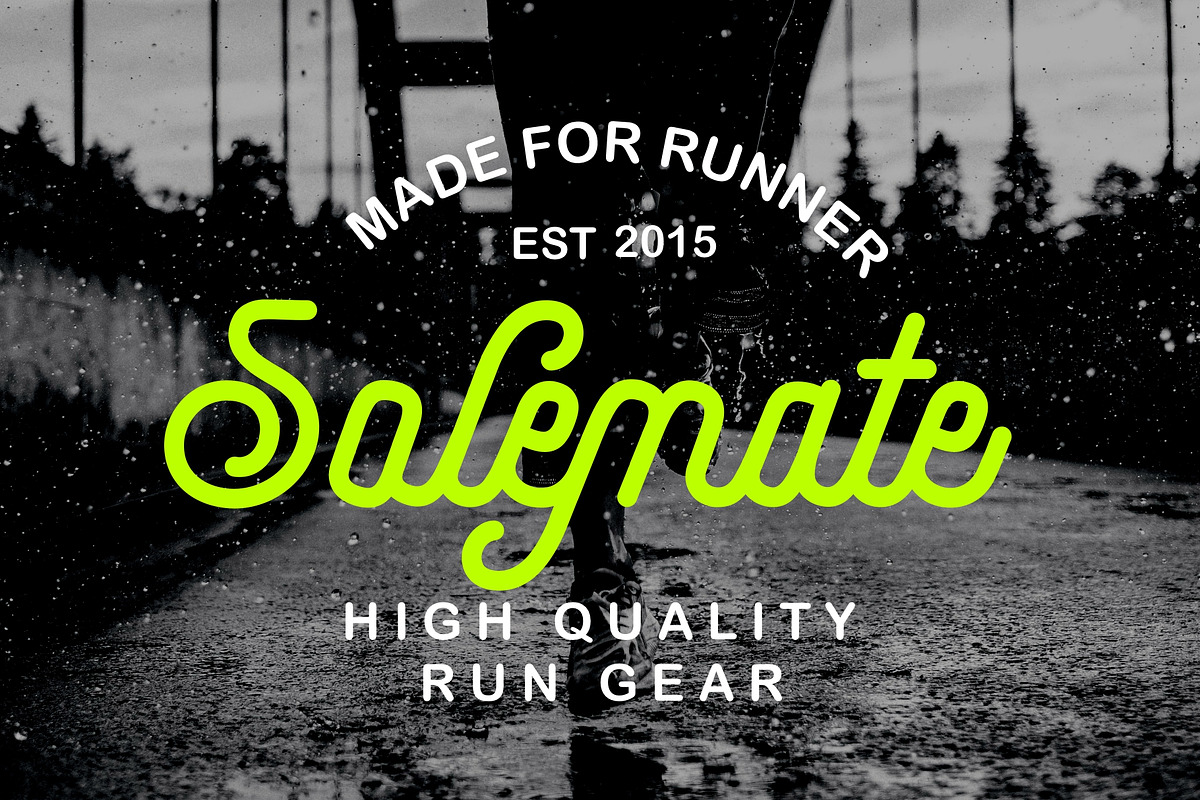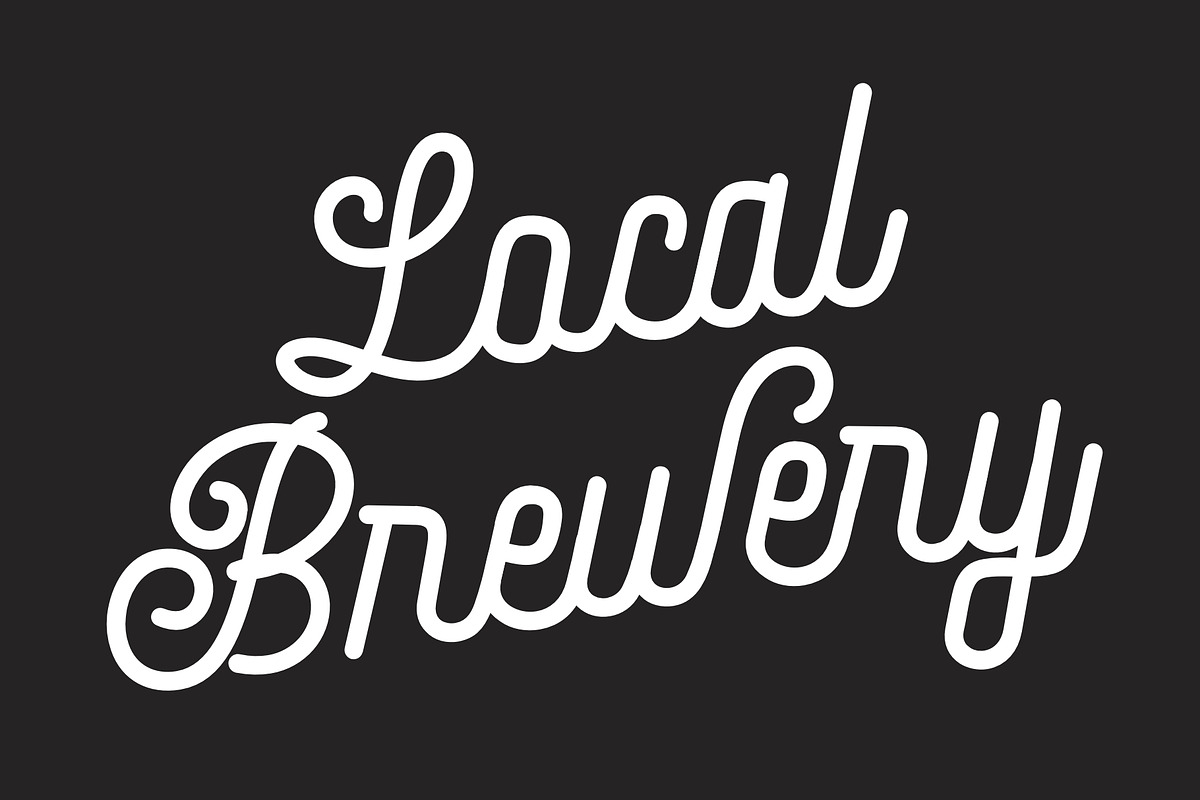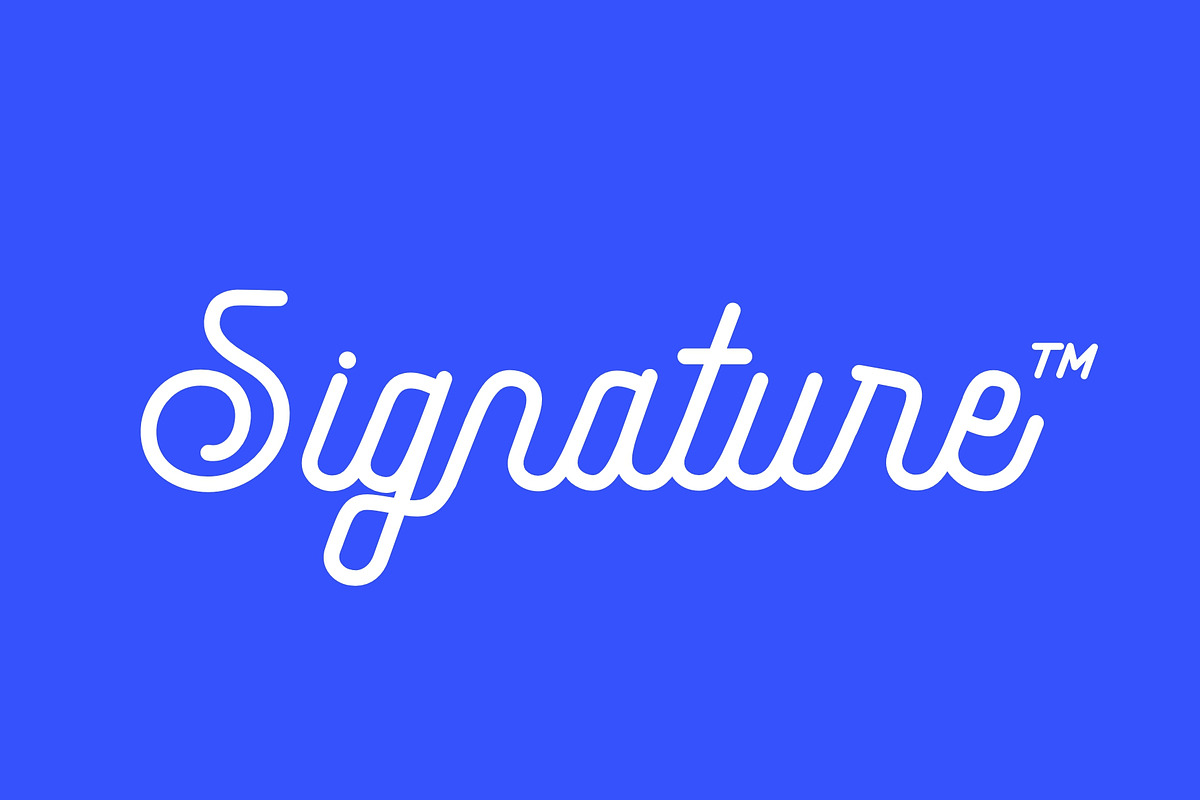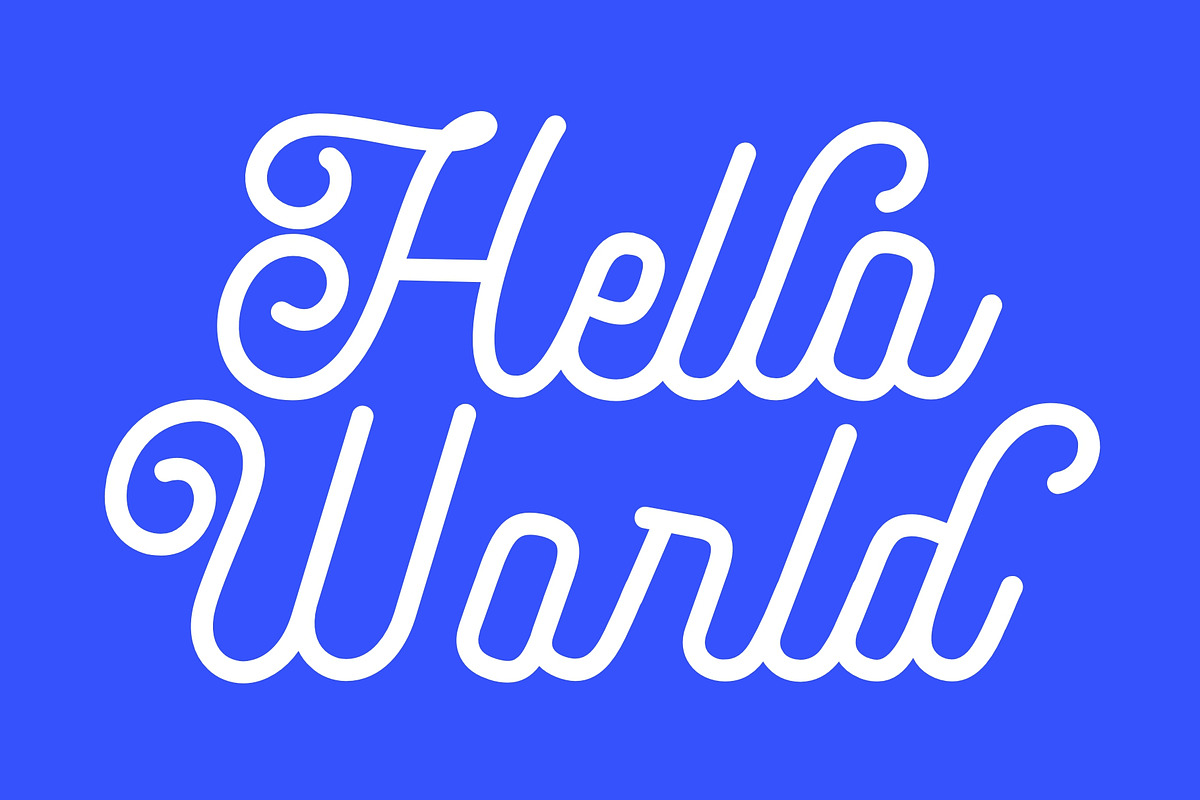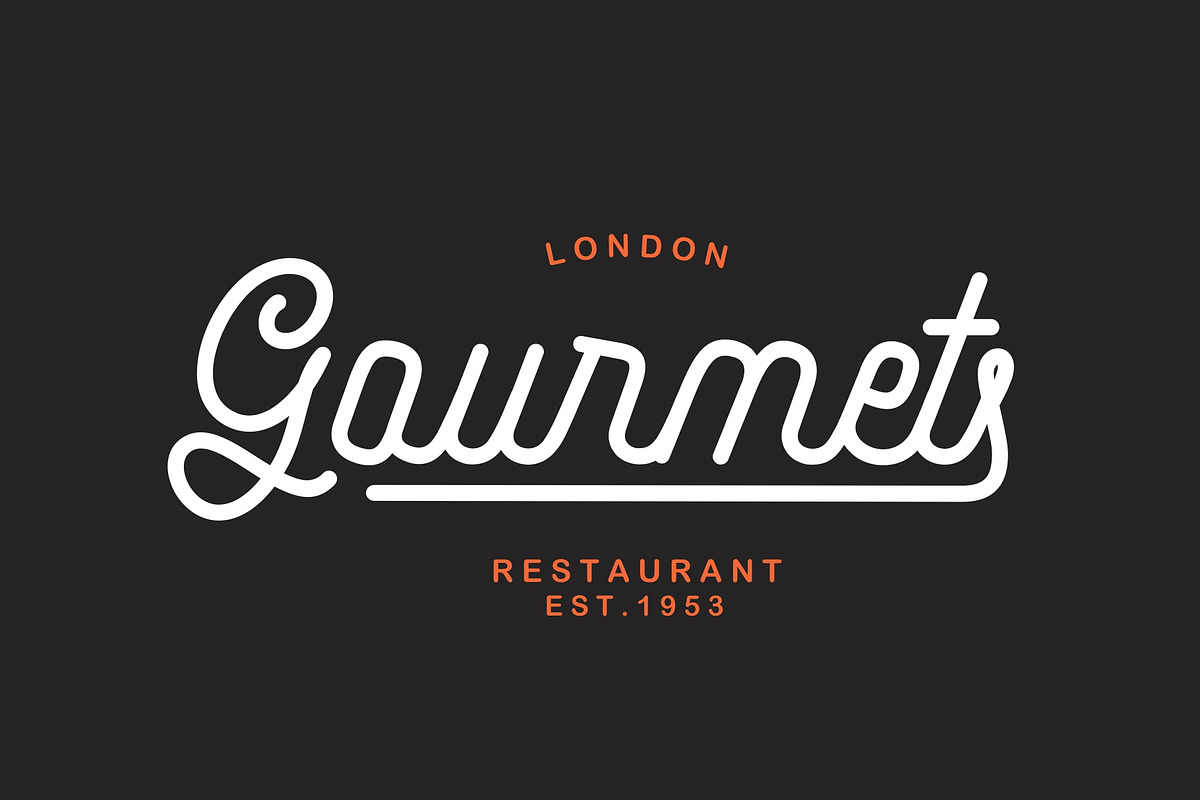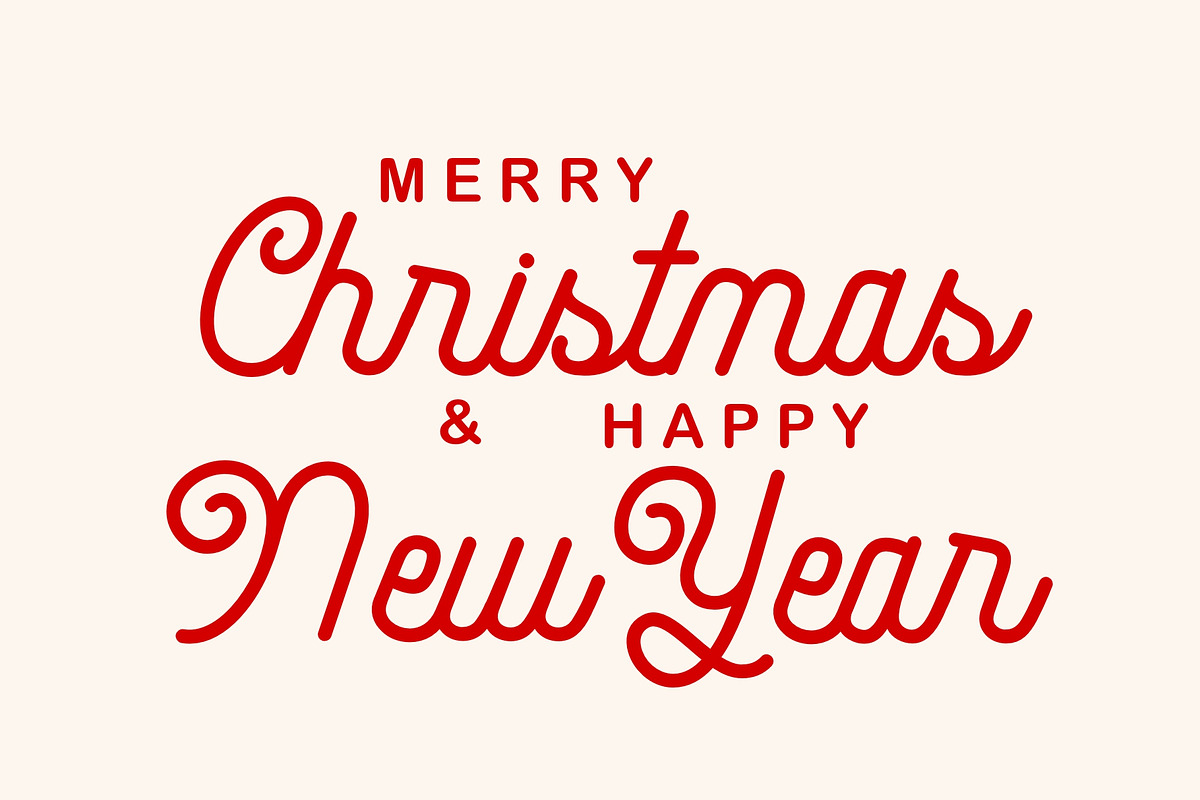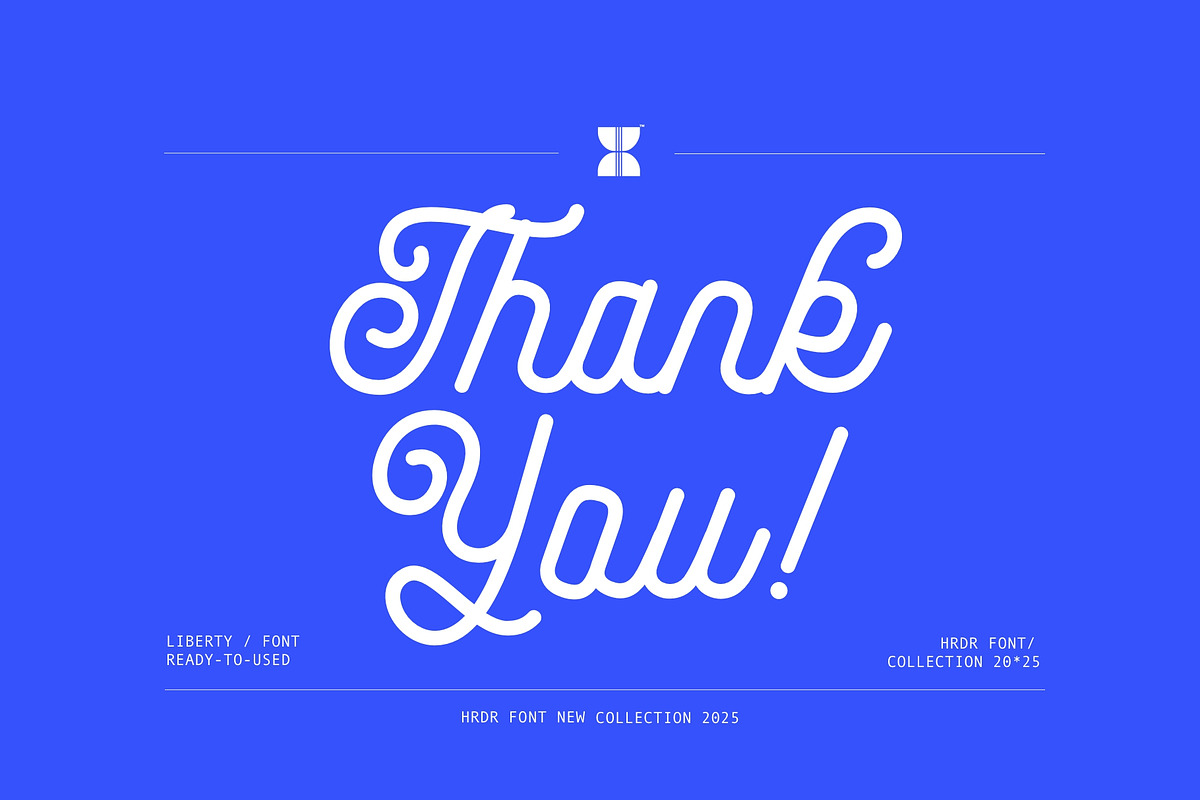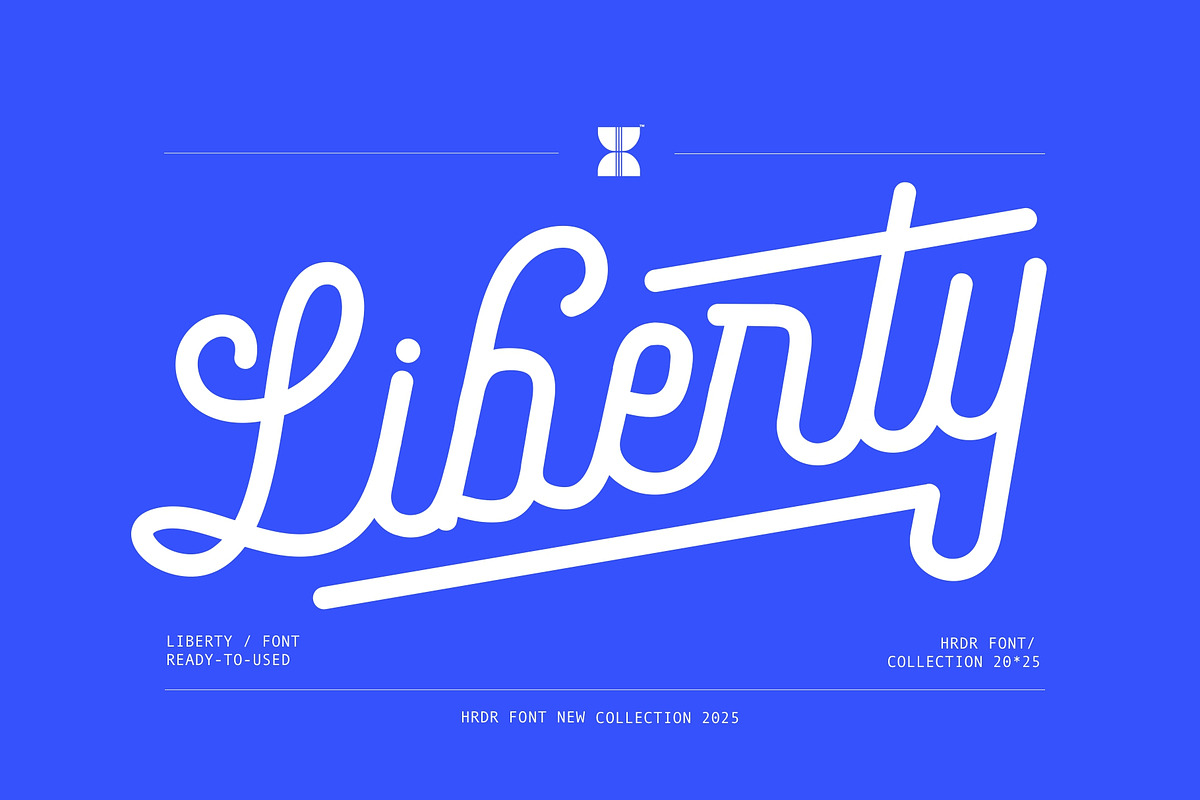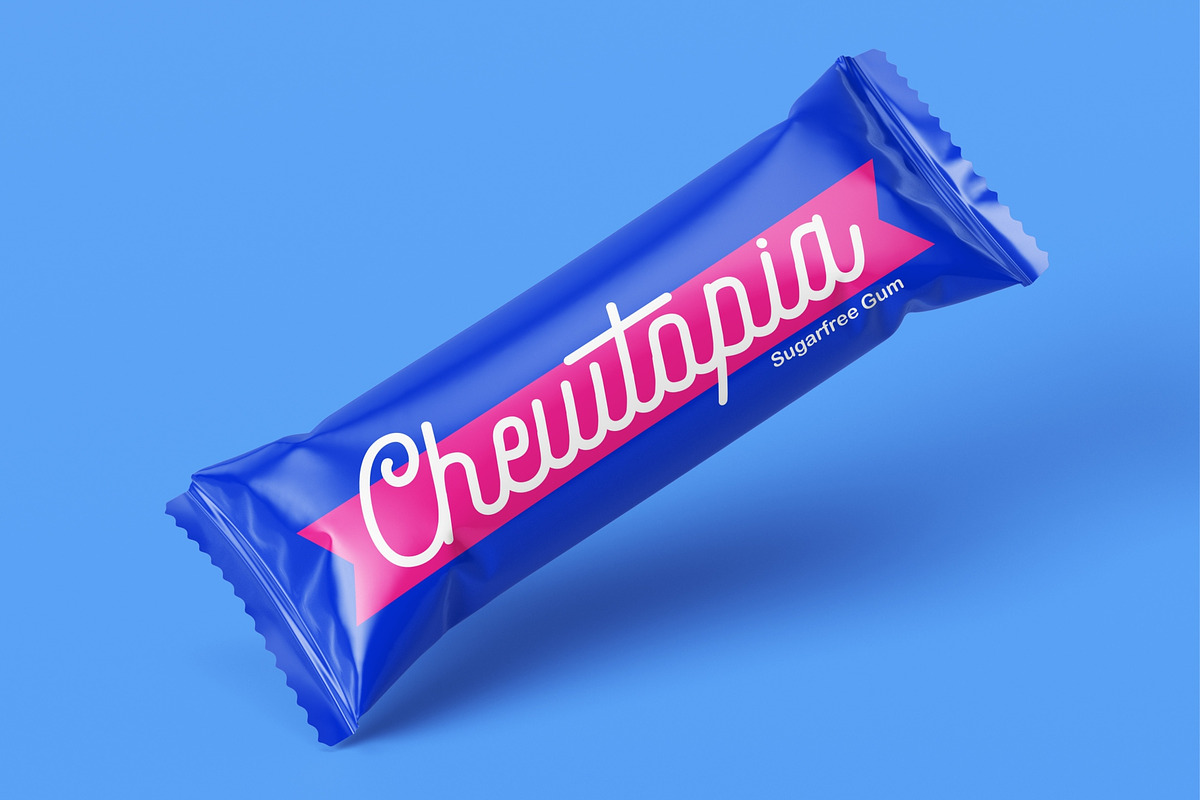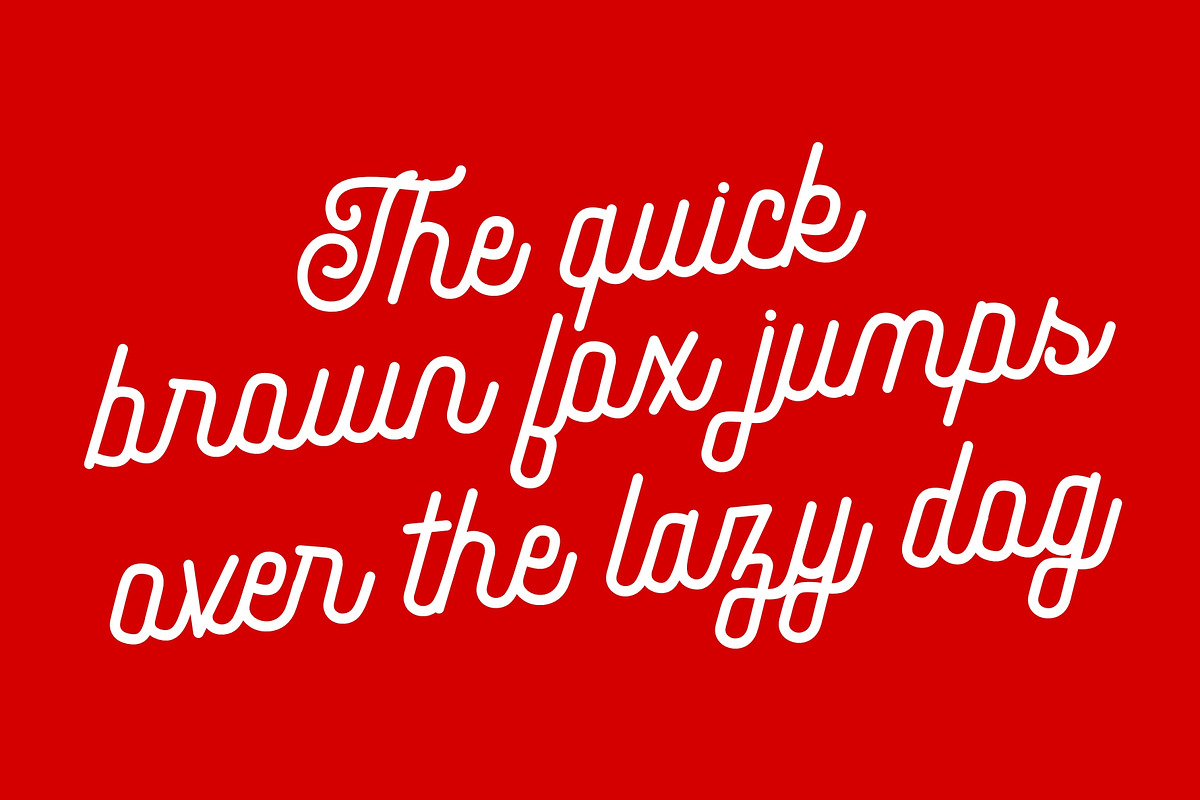
Liberty
Say hello to Liberty! A new Modern monoline font. Liberty is a Modern monoline font, perfect for crafting, branding, invitation, stationery, wedding designs, social media posts, Logo, advertisements, product packaging, product designs, label, Posters, photography, special events, or anything.
- numeric & Multilingual support
Stylistic Alternates with Ss01, Ss02 & Ss03